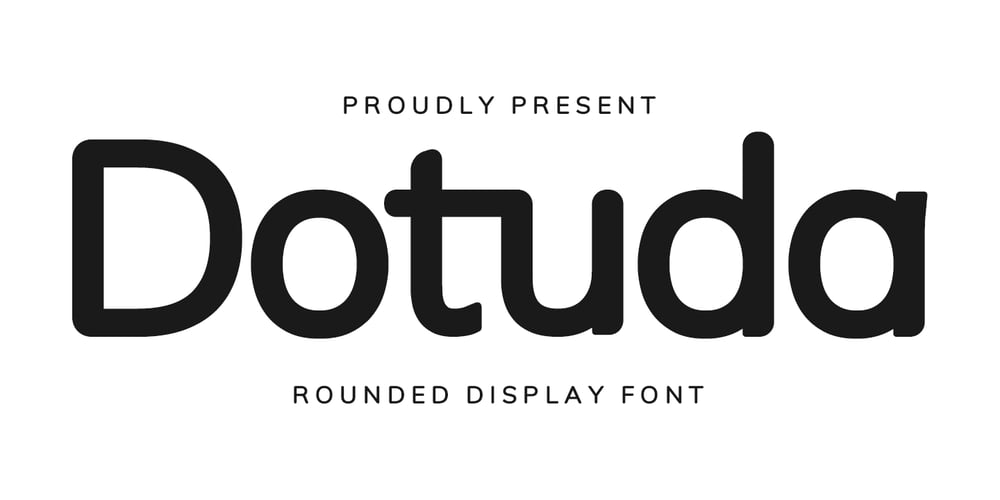
MC Dotuda Font Family was designed by Gilang Maulana and published by Maulana Creative. MC Dotuda contains 1 styles and family package options. Dotuda is a vintage sans serif with rounded font. Dotuda is perfectly suited to branding, logos, magazines, films, website, headlines, titles, captions, games, apps, posters, t-shirts and more.